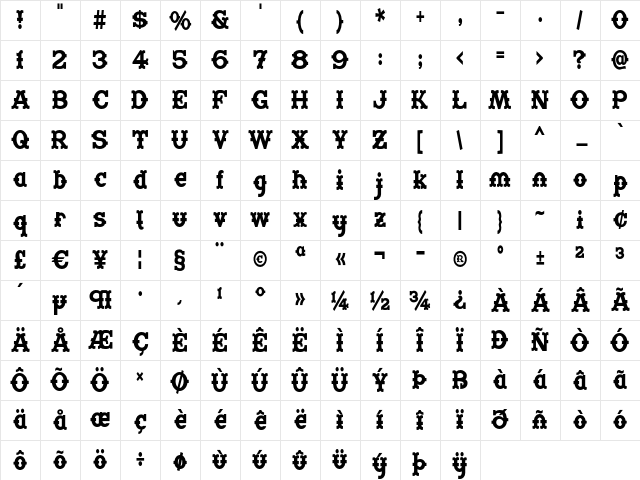
Arroyo Canyon Condensed Regular
Style: Condensed Regular
Arroyo Canyon Family
Arroyo Canyon Condensed Regular
Design Context for Arroyo Canyon
Arroyo Canyon is a composed and adaptable typeface that performs quietly and consistently across a wide range of design contexts. Its narrow stance lets it pack a punch even in space-constrained designs.